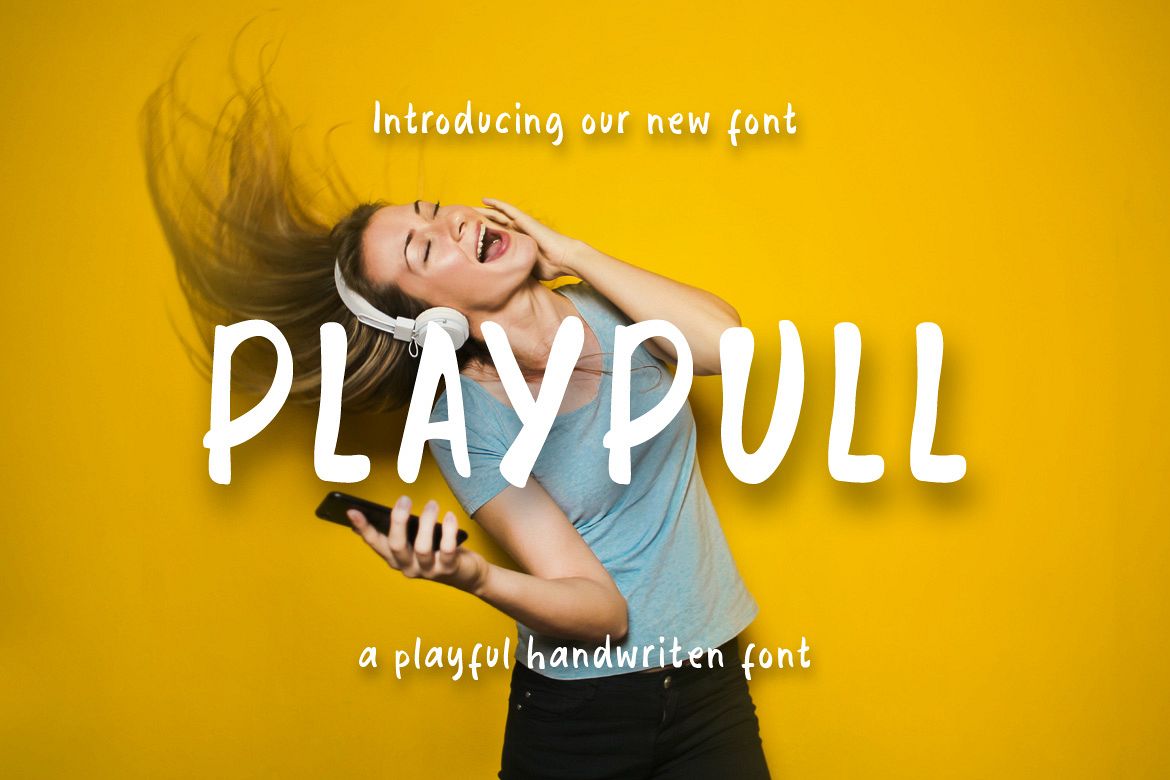
PLAYPULL
PLAYPULL is a playful handwritten font, unique, fresh, fun and easy to use that works for any design project. PLAYPULL font is the great choice for a watermark on photography, quotes, album cover, Headline text, book cover, children t-shirt design, promotion, and much other design projects.